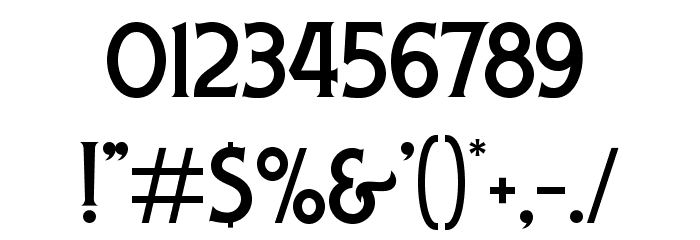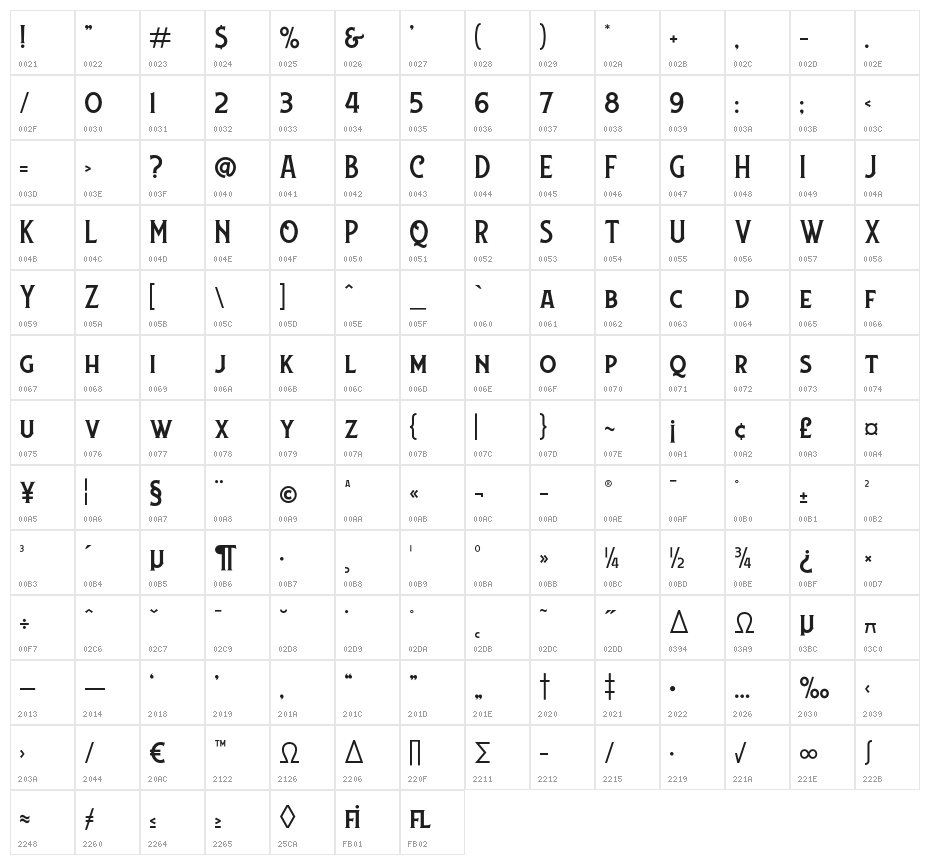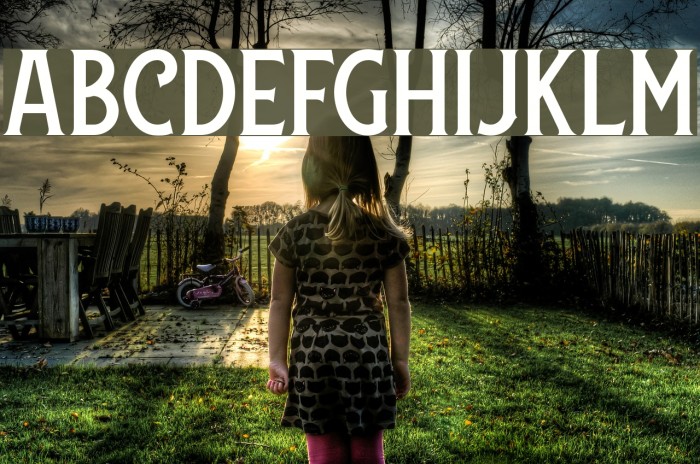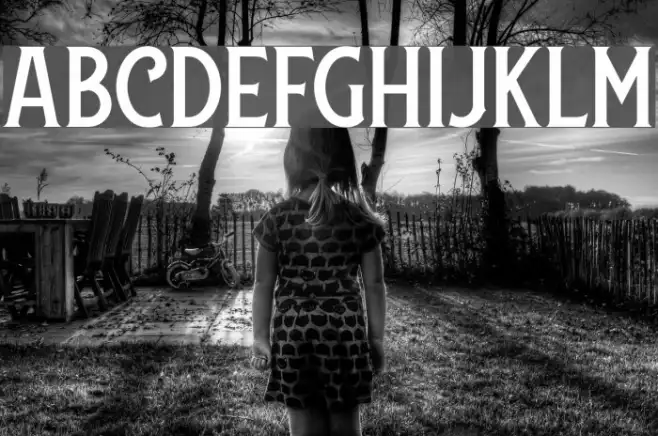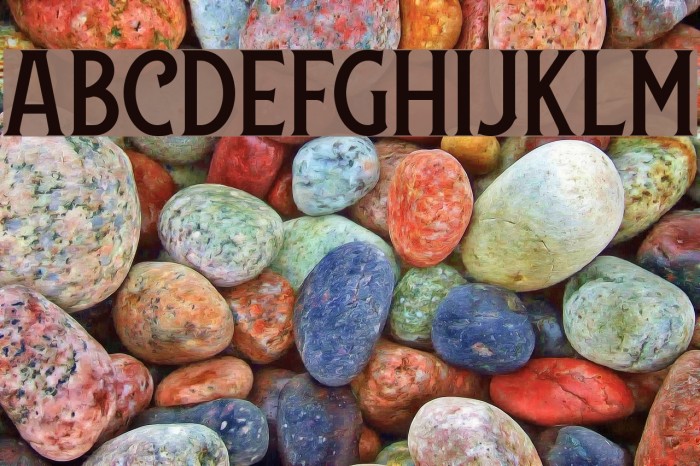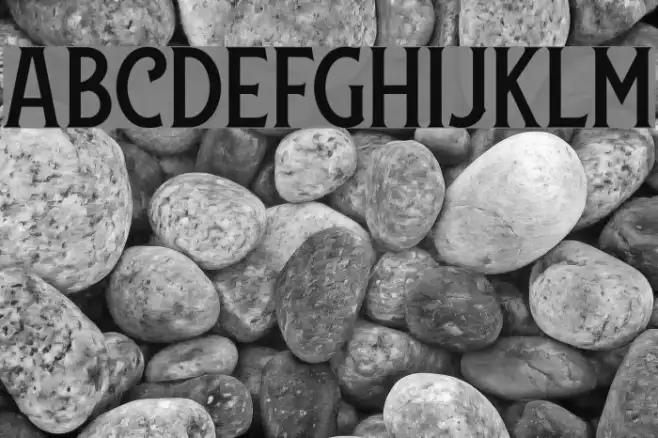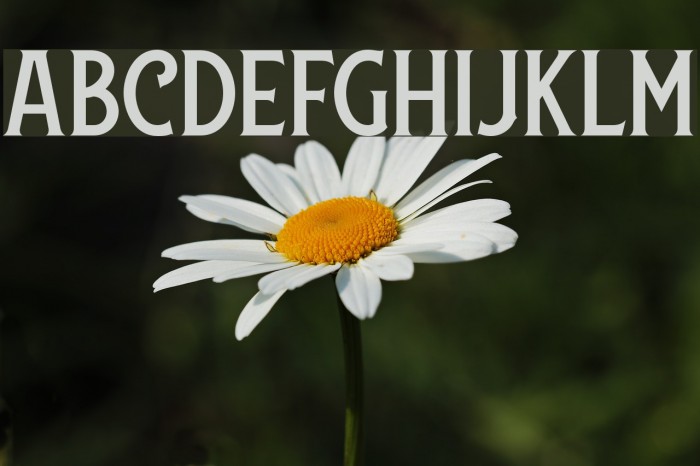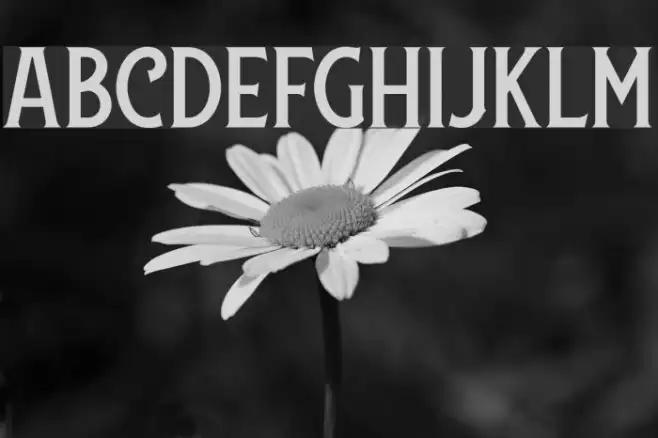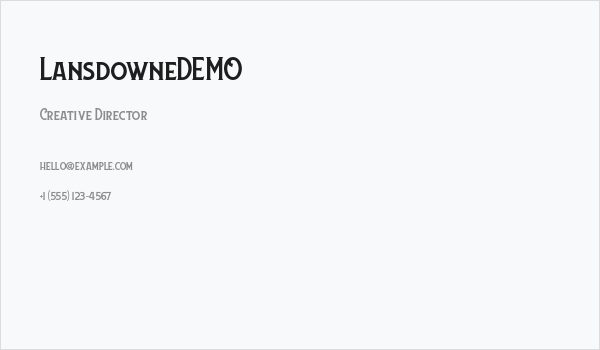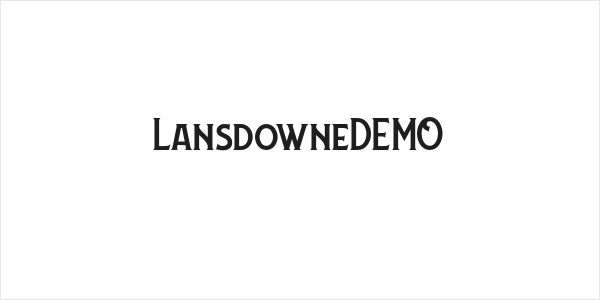
LansdowneDEMO Font
LansdowneDEMO Description
This font features a bold and dynamic serif style with a strong presence. The uppercase letters are characterized by sharp, angular serifs and a slightly condensed form, giving them a commanding appearance. The lowercase letters maintain the same boldness, with a consistent stroke width that enhances readability. Numbers are clear and distinct, matching the overall bold aesthetic. Special characters are well-integrated, maintaining the font's cohesive style. The font's design is both classic and modern, making it versatile for various applications.
| Overall Style | Modern Classic |
| Proposed Projects | Ideal for headlines, branding, posters, and any project requiring a strong, impactful typeface. |